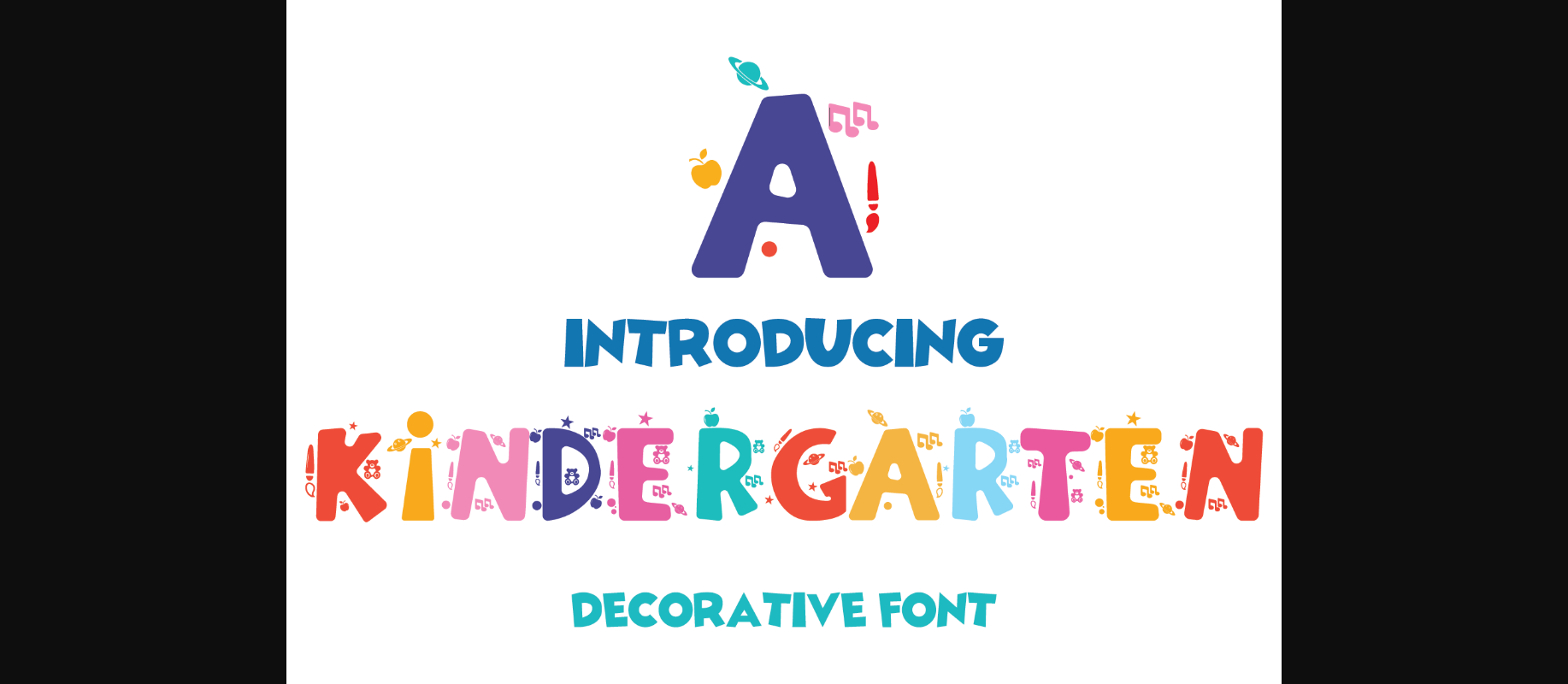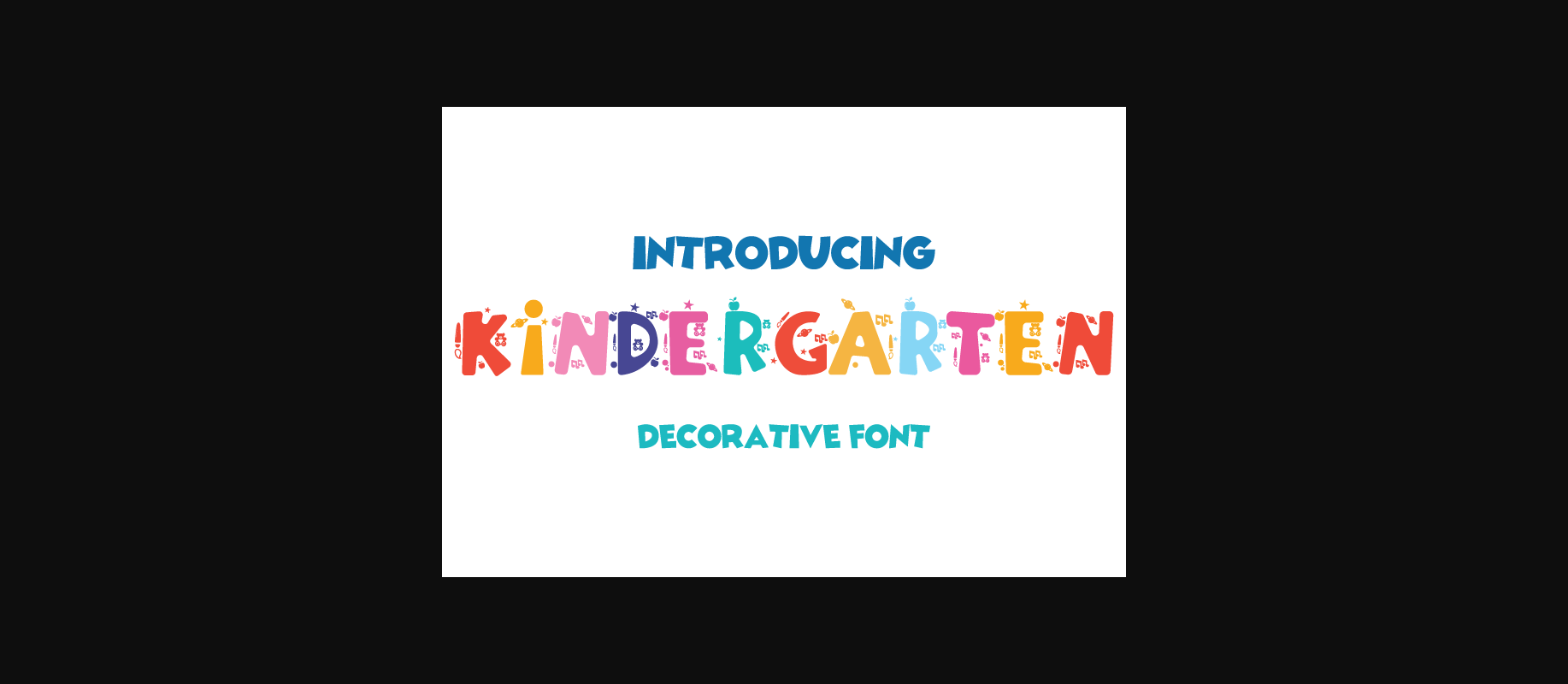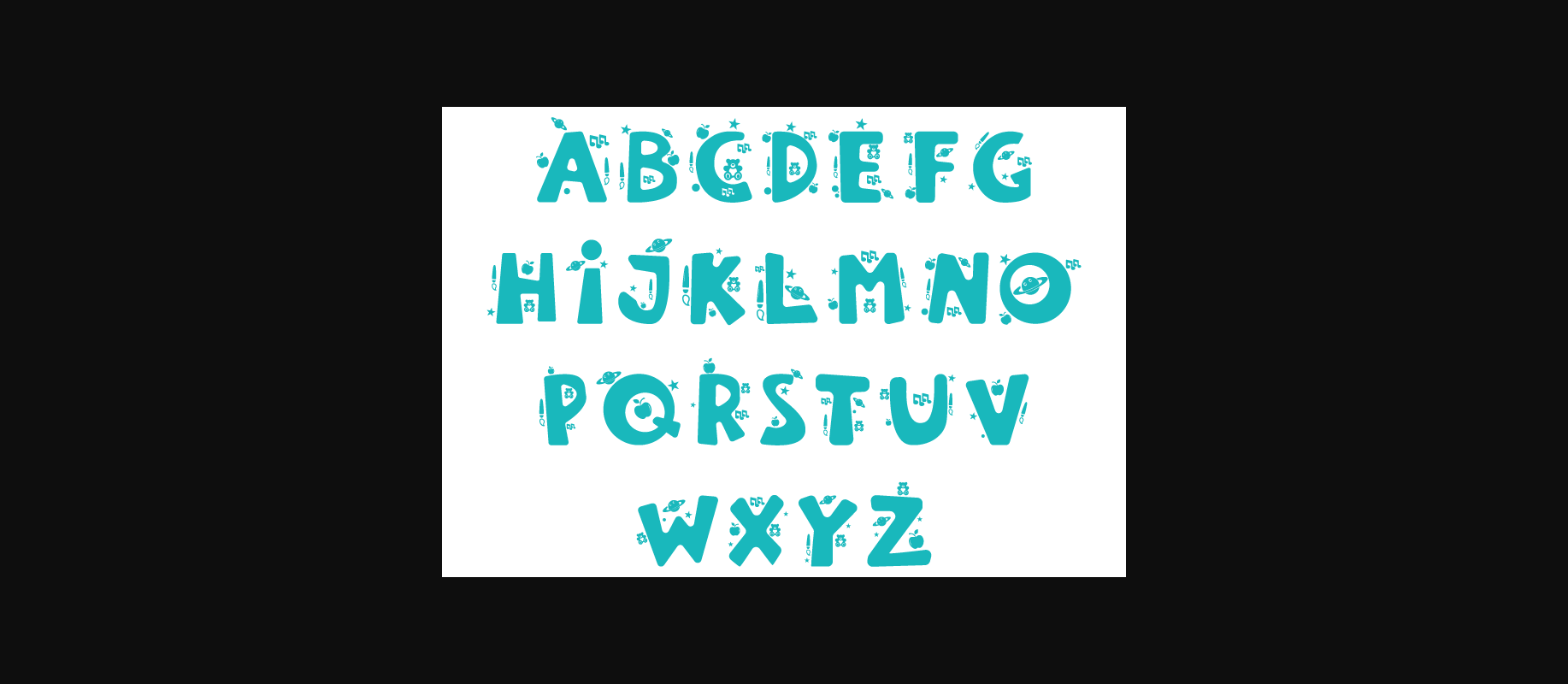
About Kindergarten Font
KindergartenFont is a typeface designed with a playful and childlike aesthetic. It features a set of whimsical, cheerful characters, often reminiscent of like handwritten letters or doodles made for children. You can use this font for any kid’s projects proudly.